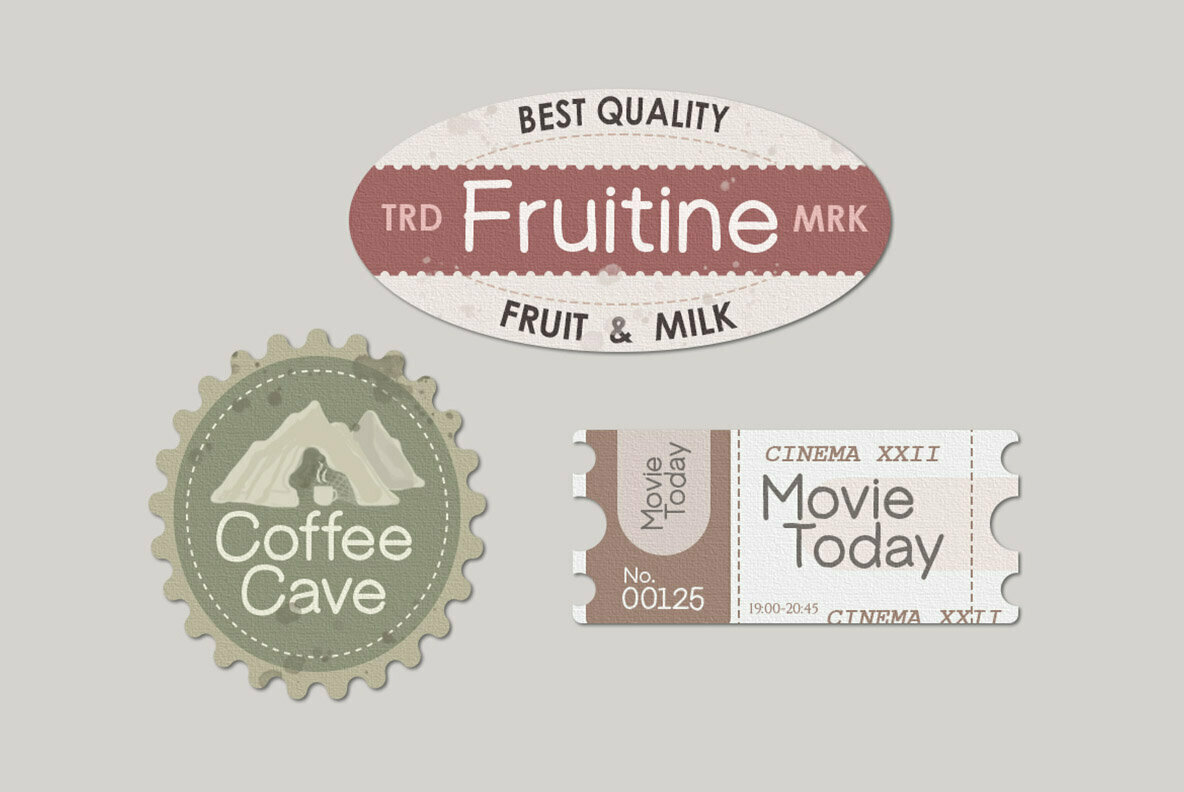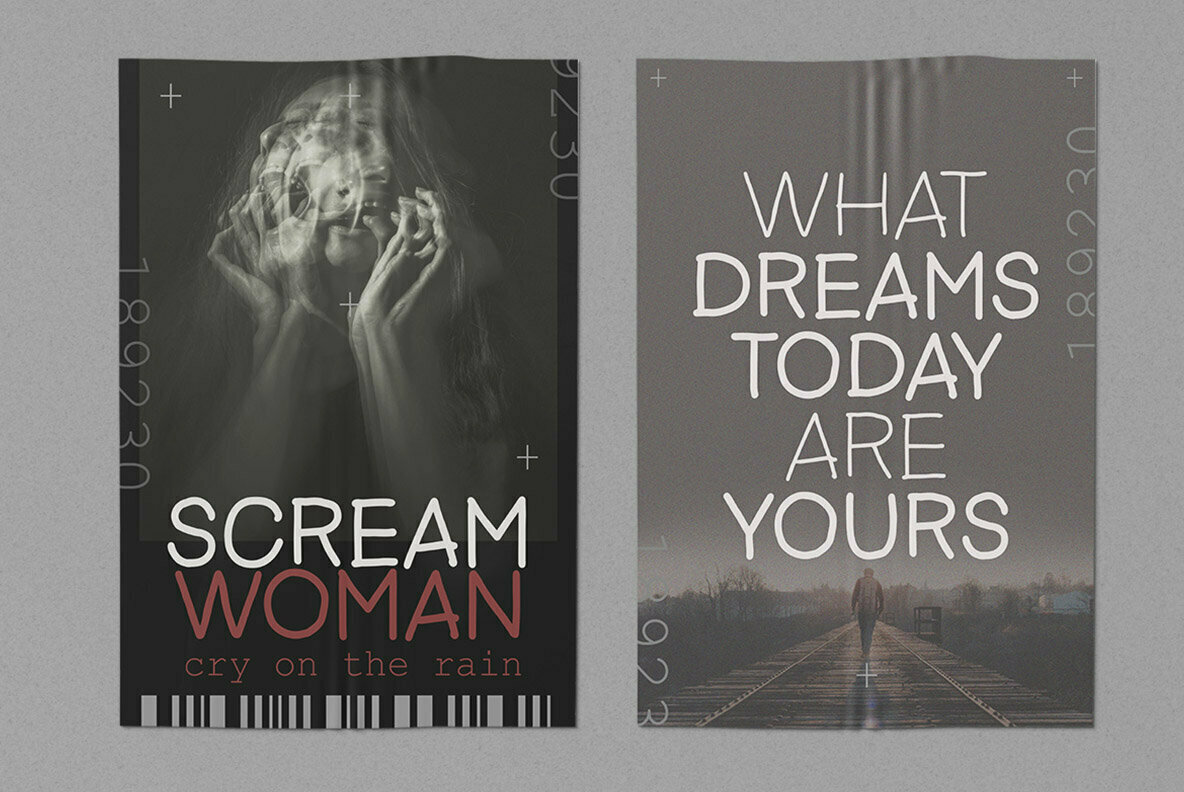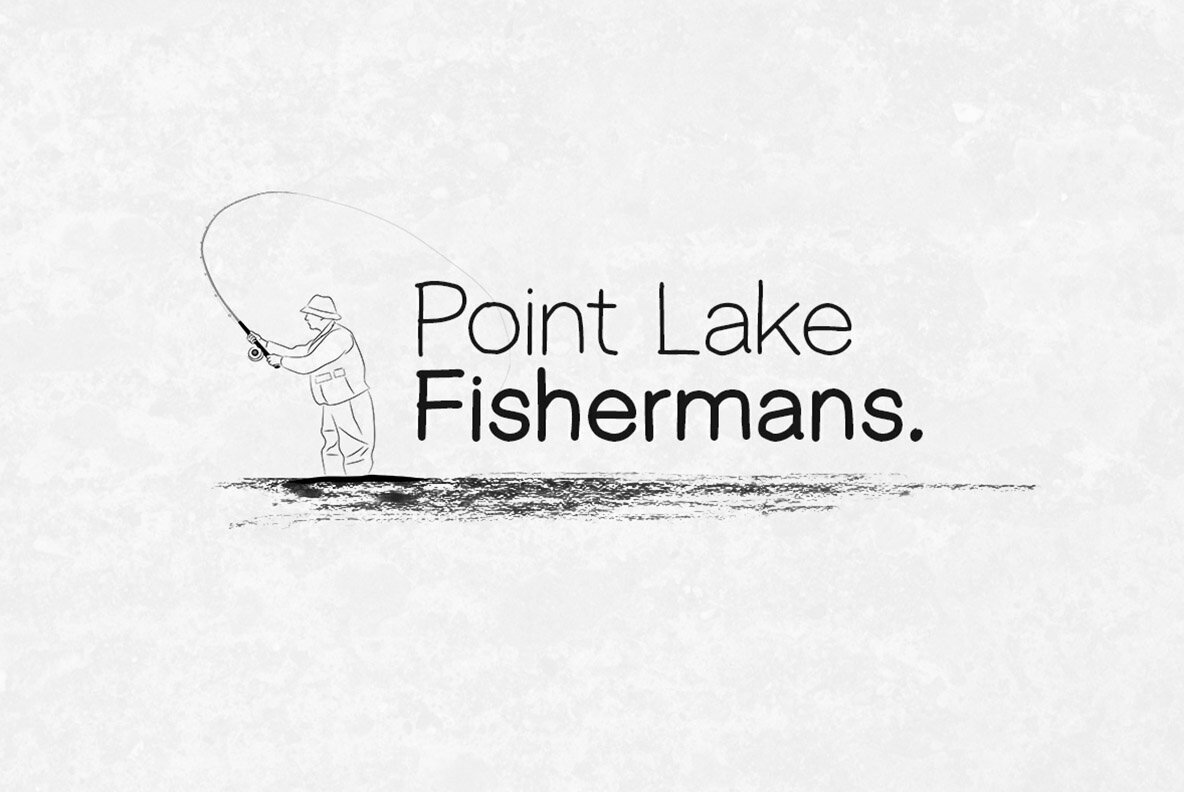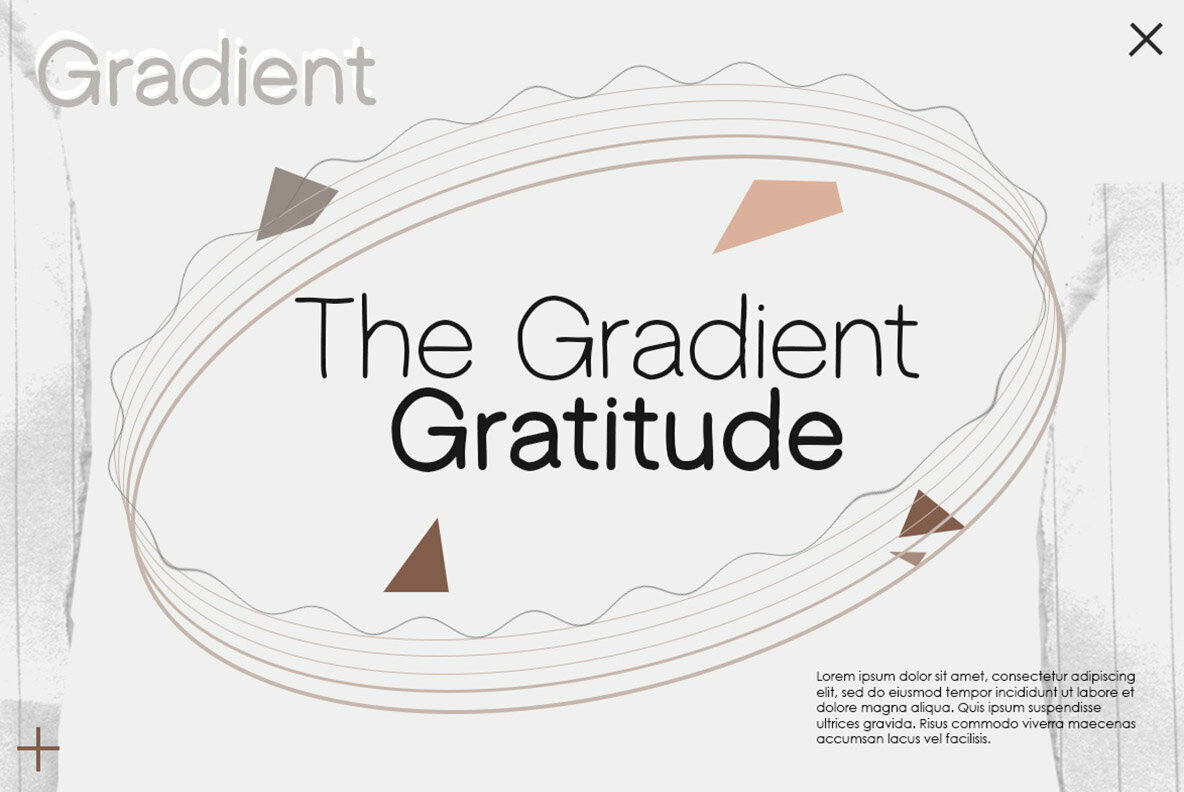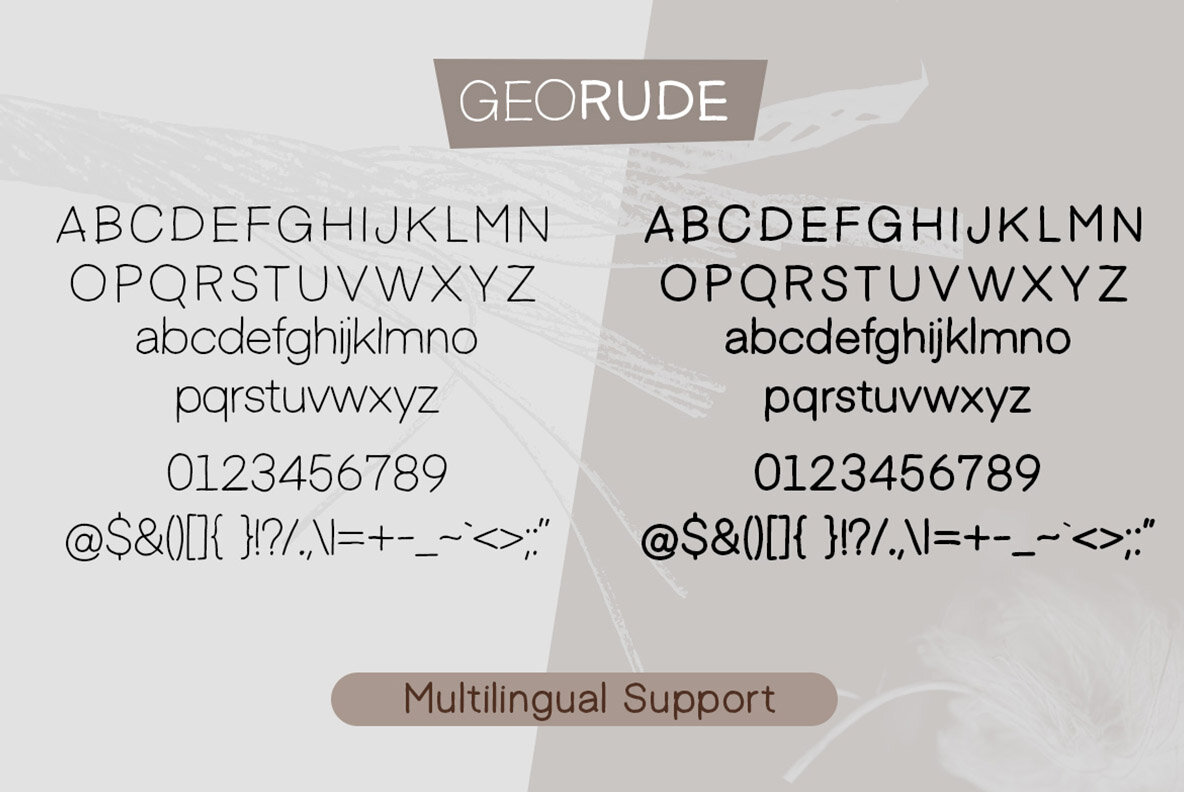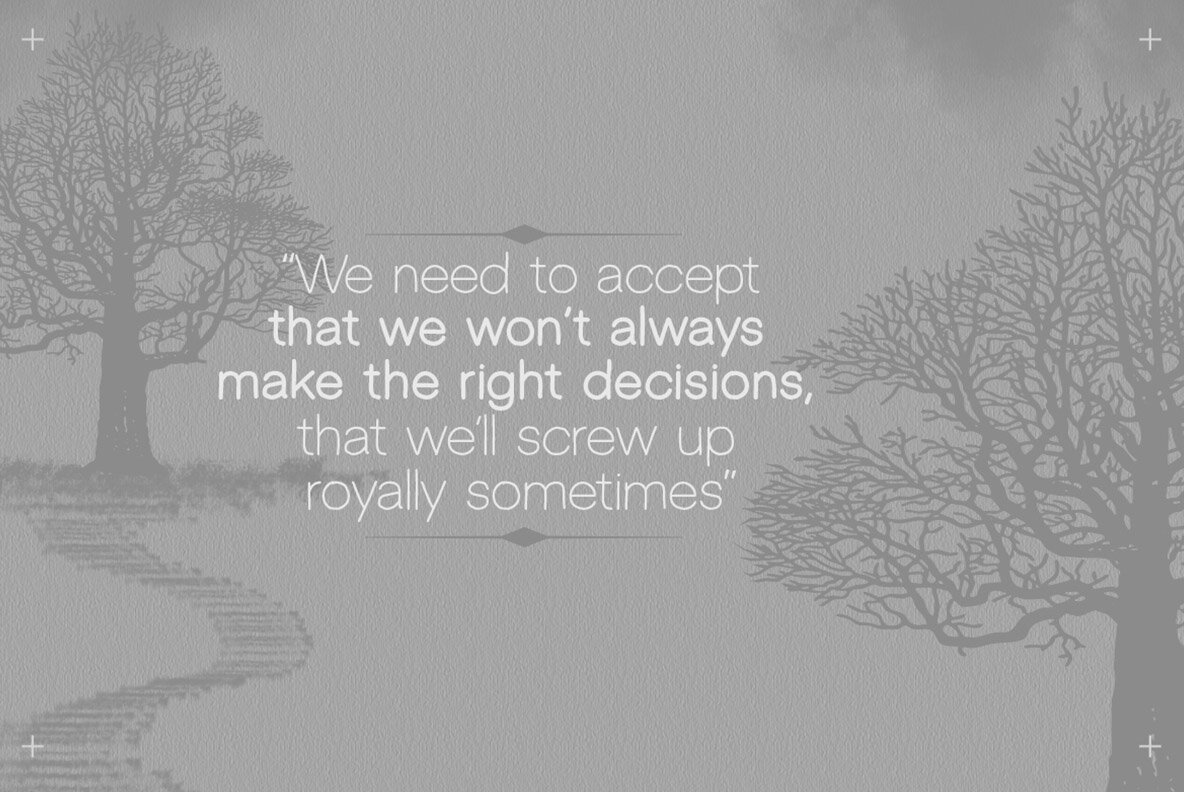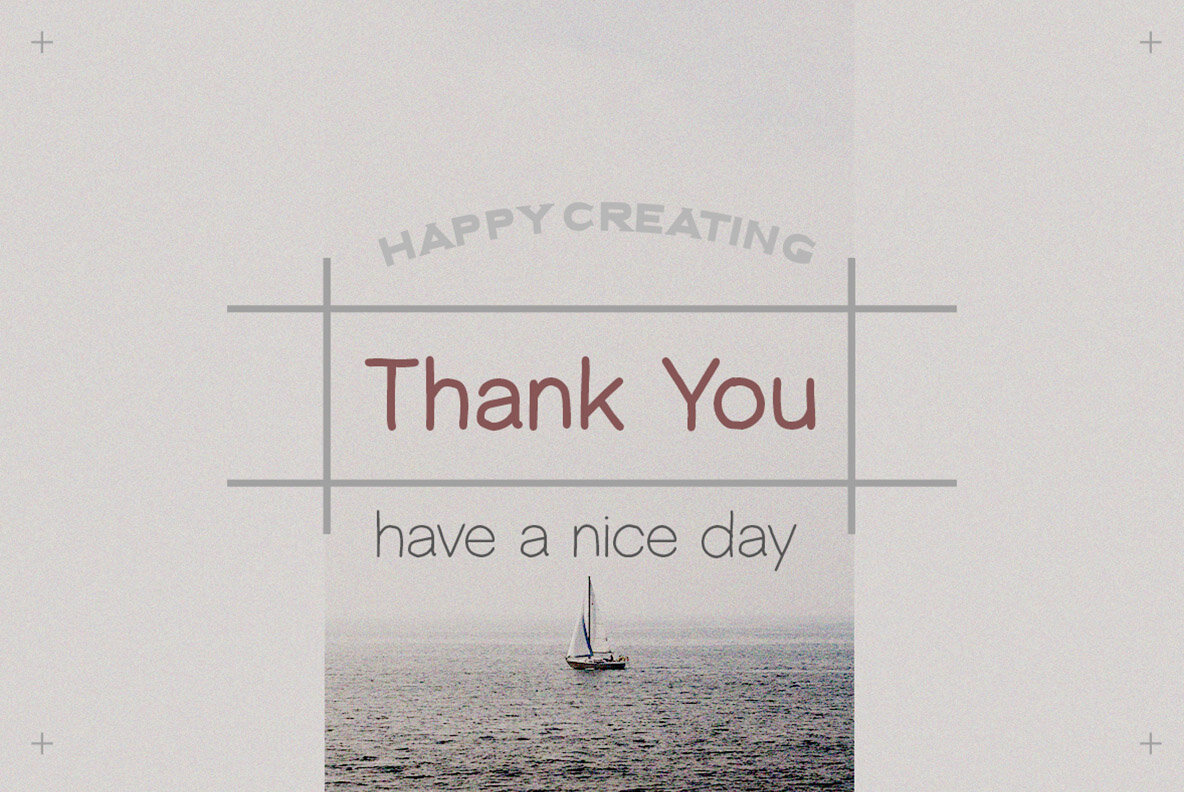
Georude Font
Georude Regular
Georude Bold
Georude is a geometrically precise font tailored for contemporary branding applications. Its versatility makes it an ideal choice for a range of projects, from packaging and logos to stationery and editorial design.Georude: A Modern Geometry Font for Diverse Designs